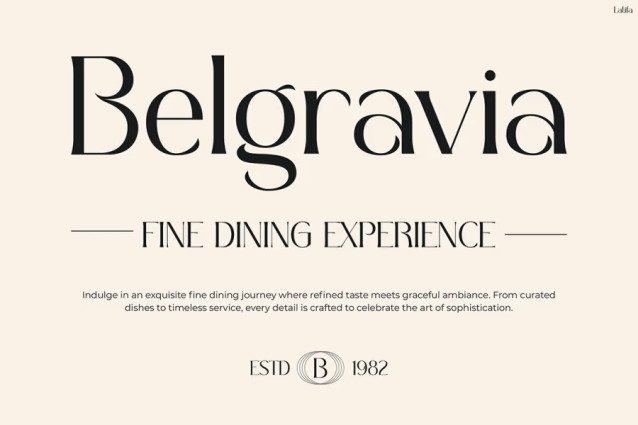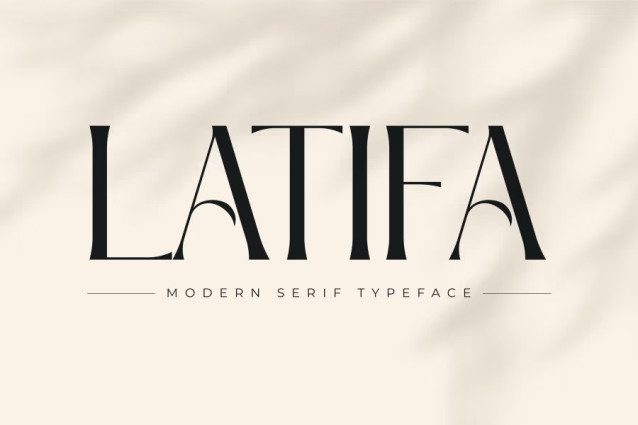
Latifa Serif Font
Latifa Serif Font is a modern serif that blends elegance and simplicity in perfect harmony. Each curve and stroke feels refined, while every letter flows beautifully with intention. As a result, this font transforms ordinary words into captivating visual statements. It combines classic sophistication with modern minimalism, ensuring your designs always look polished and graceful.
Moreover, Latifa brings calm energy to every project. Its balanced proportions and soft contrasts add depth without overwhelming the viewer. Whether paired with muted tones or bold backgrounds, it maintains a sense of effortless luxury. Because of this, your typography will always look professional and refined.
Above all, Latifa celebrates the beauty of simplicity. It’s not just a font—it’s a creative voice that adds warmth, clarity, and emotional depth to your message.